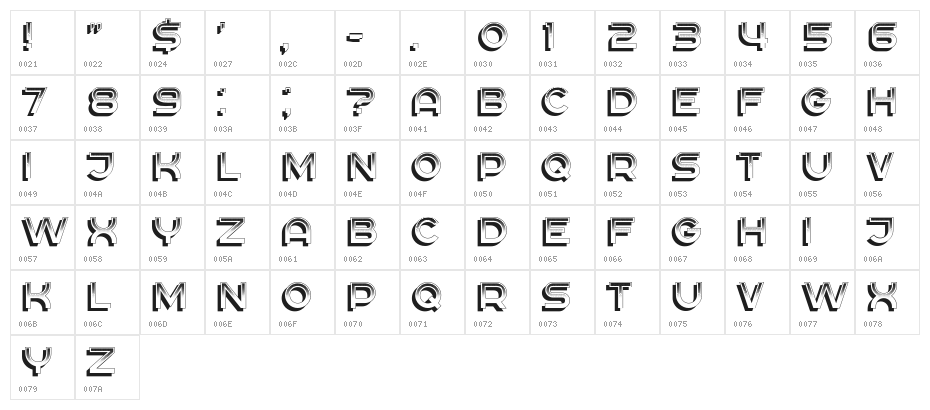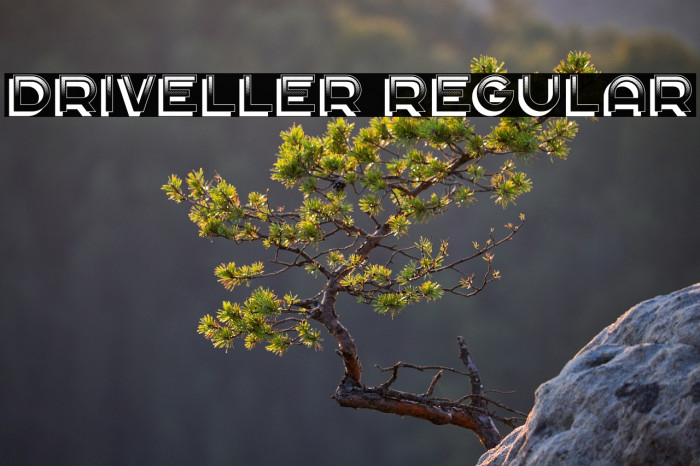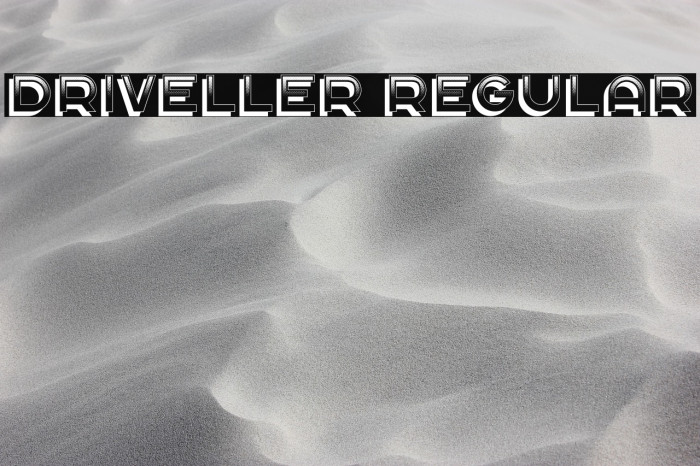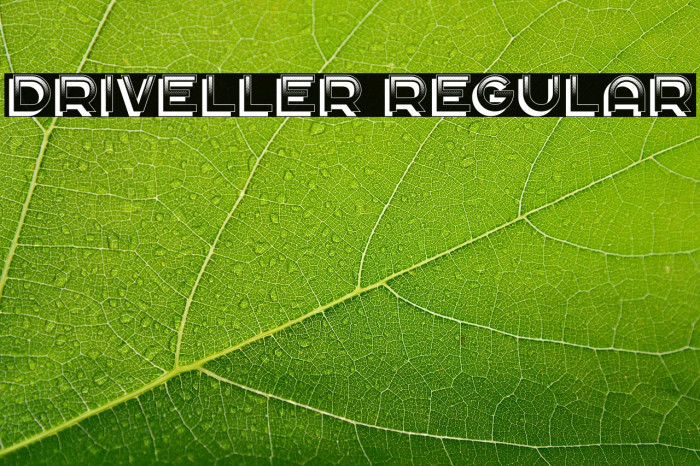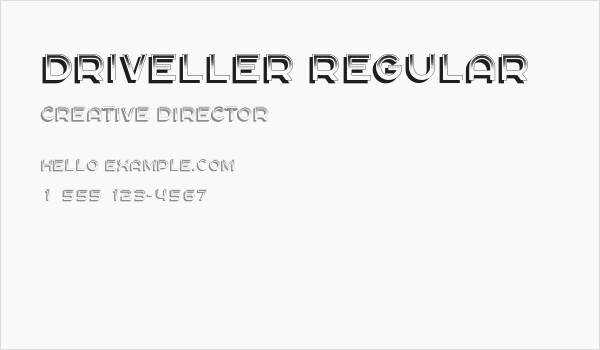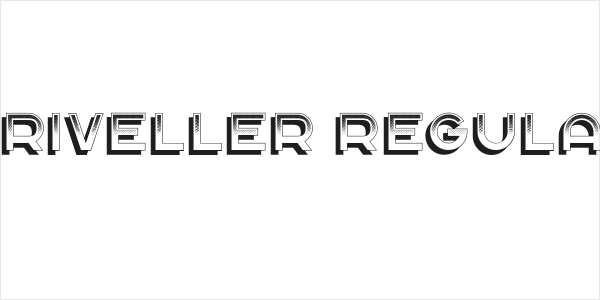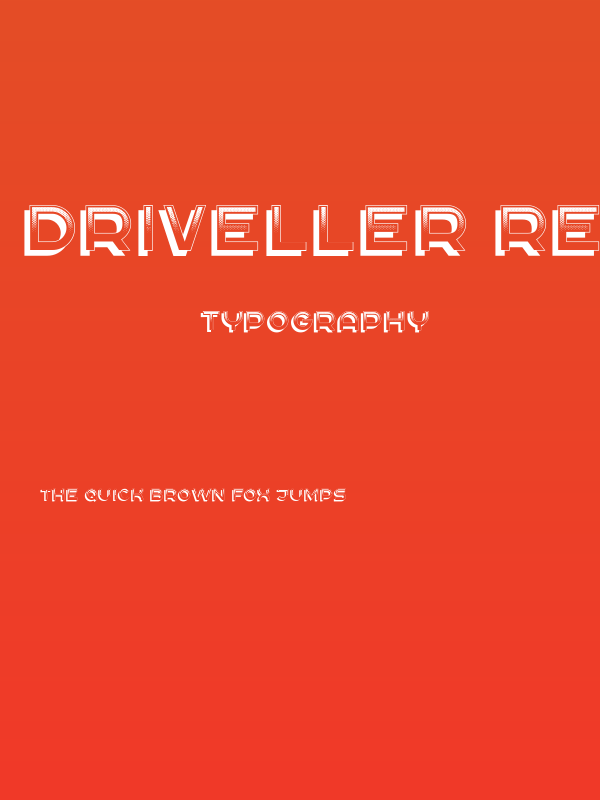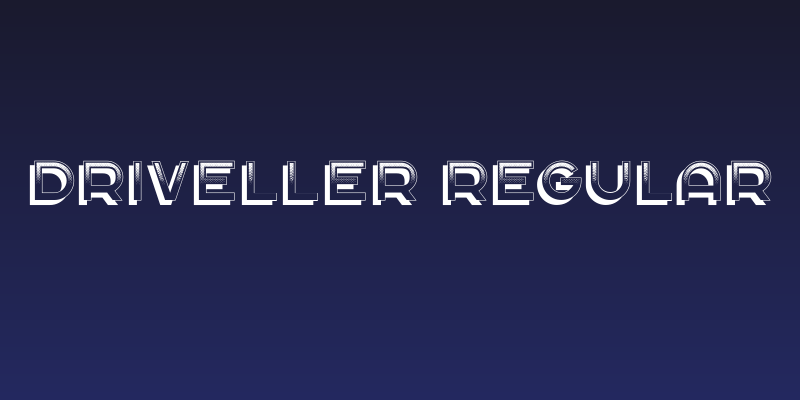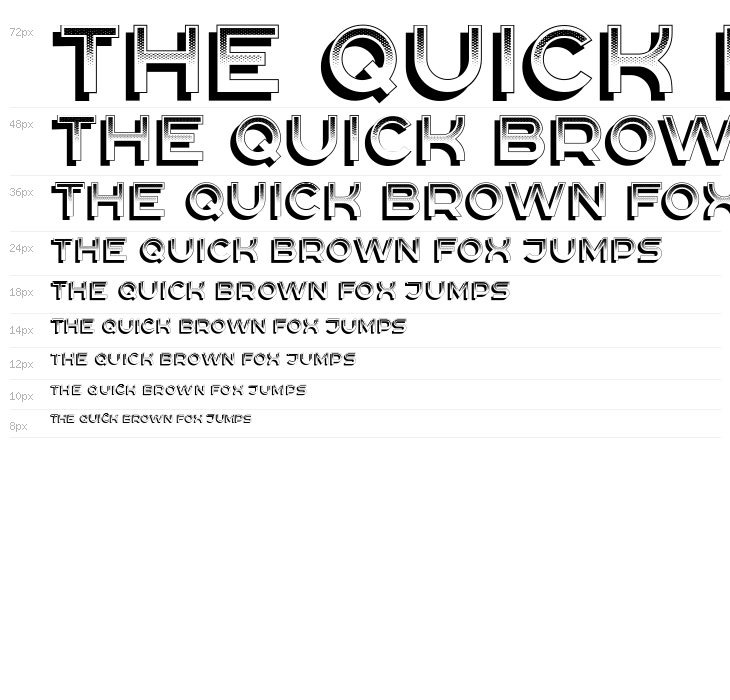
Driveller Regular Font
Driveller Regular Description
This font features a bold, decorative style with a three-dimensional effect created by a shadowed outline. The characters are uppercase and have a geometric, block-like appearance with clean lines and sharp angles. The design incorporates a striped pattern within the letters, adding a dynamic and eye-catching element. The numerals and special characters maintain the same bold and structured aesthetic, ensuring consistency across all glyphs. This font is ideal for projects that require a strong visual impact and a modern, edgy feel.
| Proposed Projects | Ideal for posters, headlines, branding, and any design needing a striking, modern look. |